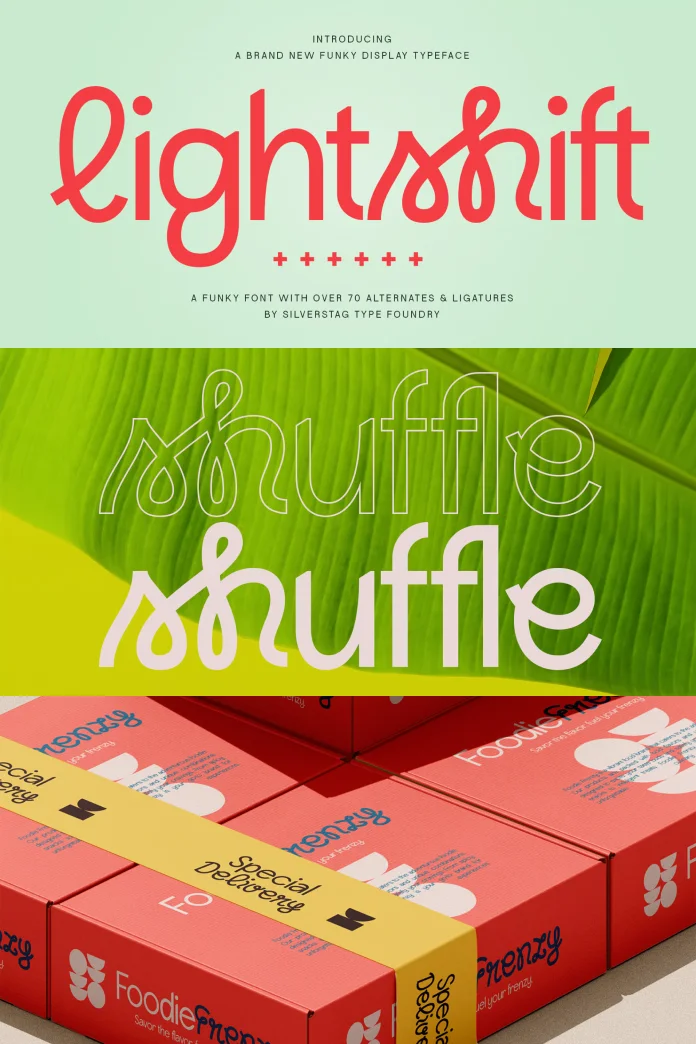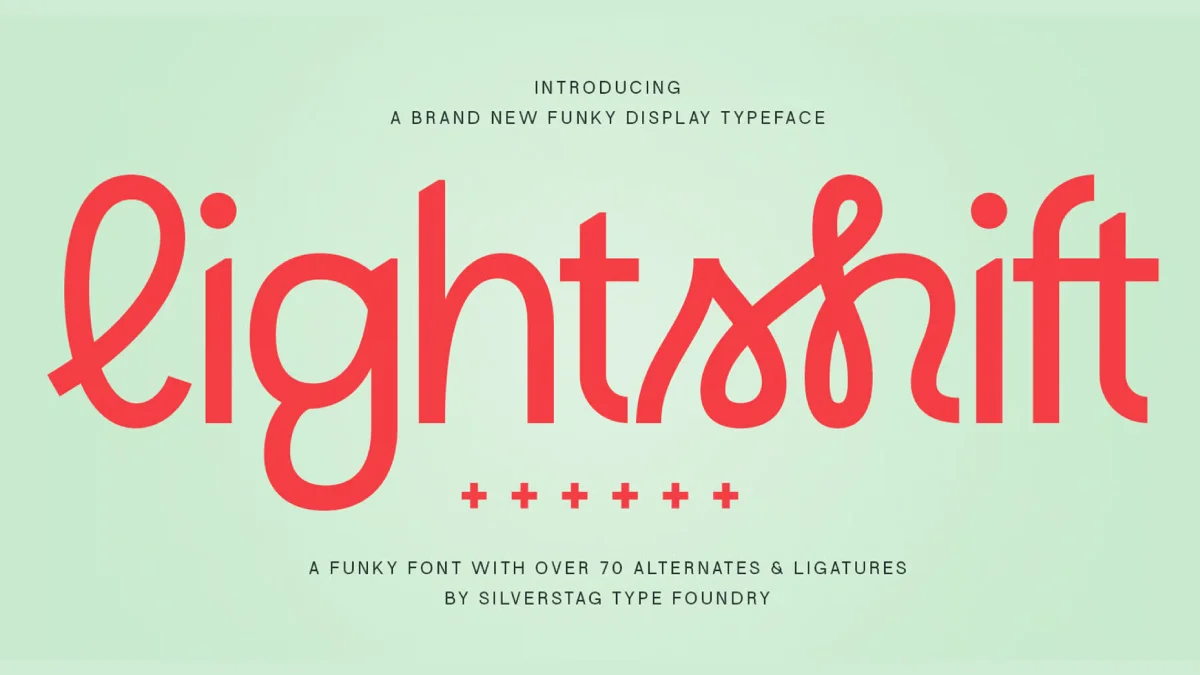
Unleash Funky, Modern Energy in Your Designs with the Lightshift Font Family
Finding that one perfect typeface can feel like uncovering a hidden gem. It is the element that ties an entire project together, giving it a voice and a distinct personality. The Lightshift font family from SilverStag Type Foundry is precisely that kind of discovery. This is not just another collection of letters. It is a complete design toolkit brimming with energy, versatility, and a uniquely modern-retro charm. This guide will walk you through every aspect of this remarkable typeface, showing you exactly why it is becoming an essential asset for designers, brands, and creators everywhere. Consider this your personal reference for mastering its creative potential.
What Defines the Lightshift Font Family?
At its core, the Lightshift font family is a playful and powerful display typeface. It masterfully blends the clean, readable structure of a geometric sans-serif with the expressive, fluid flourishes often found in script fonts. Think of it as the perfect middle ground between straightforward modernism and groovy, nostalgic fun. Its thick, confident strokes give it a strong presence, while its rounded corners and unique character shapes keep it friendly and approachable.
What does this unique combination mean for your design work? It means you get the best of both worlds. You have a font that is bold enough to anchor a headline or logo but fun enough to inject a sense of joy and motion into any layout. This is a typeface that refuses to be boring. The Lightshift font family invites interaction and commands attention, making it a powerful tool for anyone looking to create something memorable.
A Closer Look at the Four Unique Styles
Versatility is a key strength of the Lightshift font family. It does not offer just one look but a palette of four distinct styles. This allows you to fine-tune your typography and create a rich, layered design system. Each style serves a different purpose, yet they all work together beautifully.
Lightshift Regular
This is the workhorse of the family. Regular is solid, confident, and clear. It provides the foundational weight and character of the typeface, making it perfect for primary headlines, logos, and any application where you need maximum impact and readability. It’s the starting point from which all the other creative variations spring.
Lightshift Round
By softening the corners and terminals, the Round style introduces a friendlier, more gentle feel. It retains the same weight and energy as the Regular version but feels a bit more whimsical and approachable. Do you need your message to feel warm and inviting? Lightshift Round is an excellent choice for youth-focused brands, playful packaging, and social media quotes.
Lightshift Outline
For a truly retro or artistic effect, the Outline style is a showstopper. It strips the font down to its core structure, creating a look that is airy, edgy, and incredibly stylish. It works wonders when layered over images or colored backgrounds, allowing you to create typographic art that feels both vintage and futuristic. It’s an immediate attention-grabber for posters, event flyers, and website headers.
Lightshift Round Outline
What happens when you combine the softness of the Round style with the artistic flair of the Outline? You get Round Outline. This variation is bubbly, fun, and full of personality. It has a neon-sign quality that feels both nostalgic and utterly contemporary, making it a fantastic choice for merchandise, stickers, and social media graphics that need to pop.
The Secret Weapon: Over 70 Alternates & Ligatures
Here is where the Lightshift font family truly sets itself apart. It comes packed with more than 70 alternate characters and ligatures. But what are those, exactly? Think of them as special characters and letter combinations that automatically create a more custom, hand-drawn look. A standard “st” might connect in a unique, flowing way, or you could swap out a standard “a” for one with a stylish tail.
This feature transforms you from a typist into a typographic artist. You are no longer just spelling out words; you are creating unique word-shapes that are as much a part of the design as the illustration or photography. These alternates and ligatures are the key to unlocking truly one-of-a-kind logos and headlines. How do you use Lightshift font alternates? In any design software that supports OpenType features (like Adobe Illustrator, Photoshop, or Canva Pro), you can easily access these extra characters through the Glyphs panel. This allows for endless experimentation to find the perfect flourish for your project.
Where Does This Display Typeface Shine? (Practical Applications)
A great font is only as good as its application. Fortunately, the Lightshift font family is incredibly versatile, fitting seamlessly into a wide range of creative projects. Let’s explore some areas where it truly excels.
Youthful Branding and Bold Logos
Brands aiming for a trendy, energetic, and modern vibe will find a perfect partner in this typeface. Its funky font aesthetic helps create memorable logos and brand identities that stand out from the crowd of minimalist sans-serifs. The built-in ligatures are especially useful for crafting a unique and ownable brand mark.
It strikes that rare balance—it is modern yet retro, simple yet expressive, professional yet playful. It is a tool that adapts to your vision, whether you are building a brand from scratch, designing a poster for a concert, or just looking to make your social feed a little more exciting. So, the only question left is: what will you create with it first?